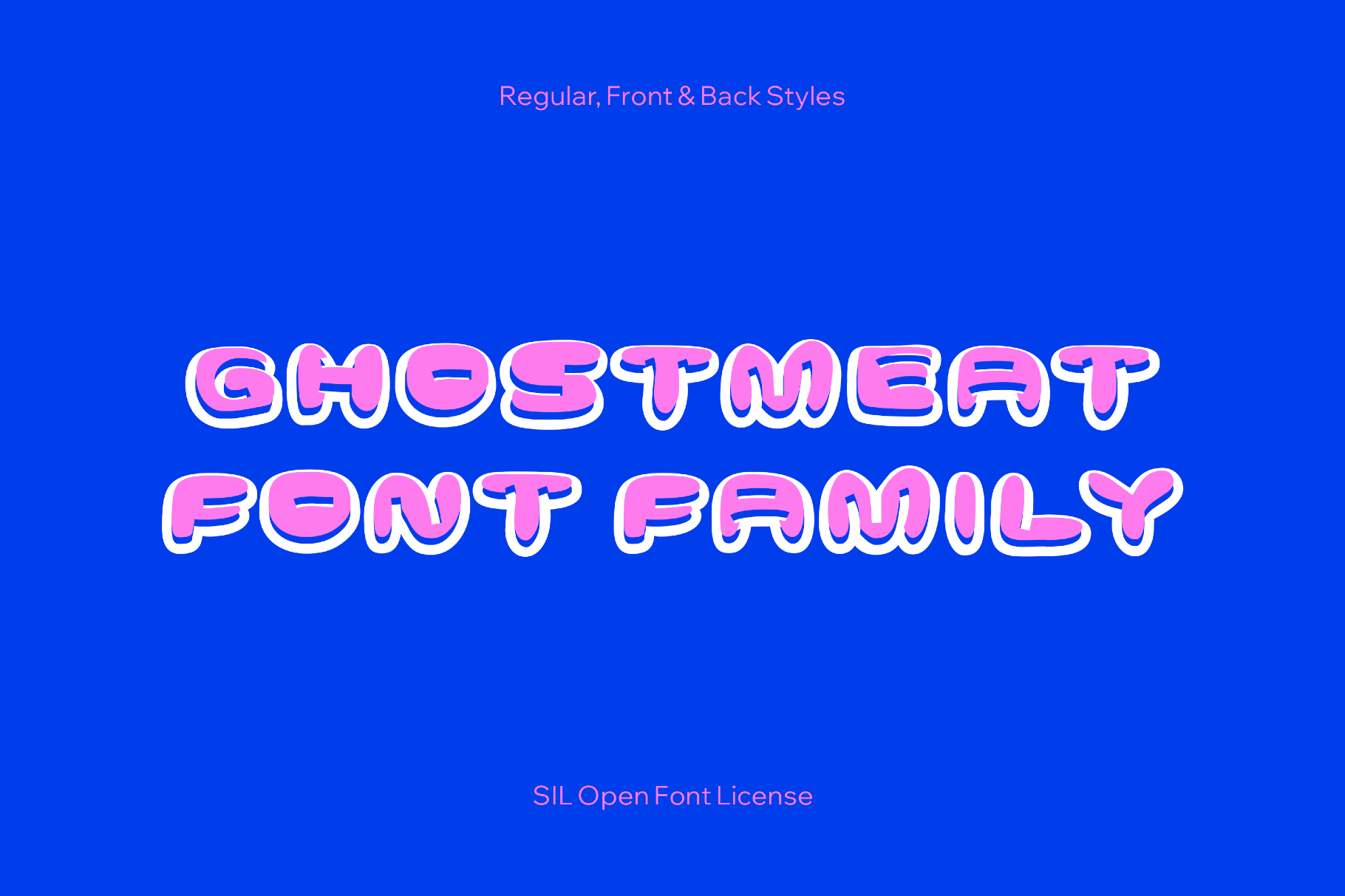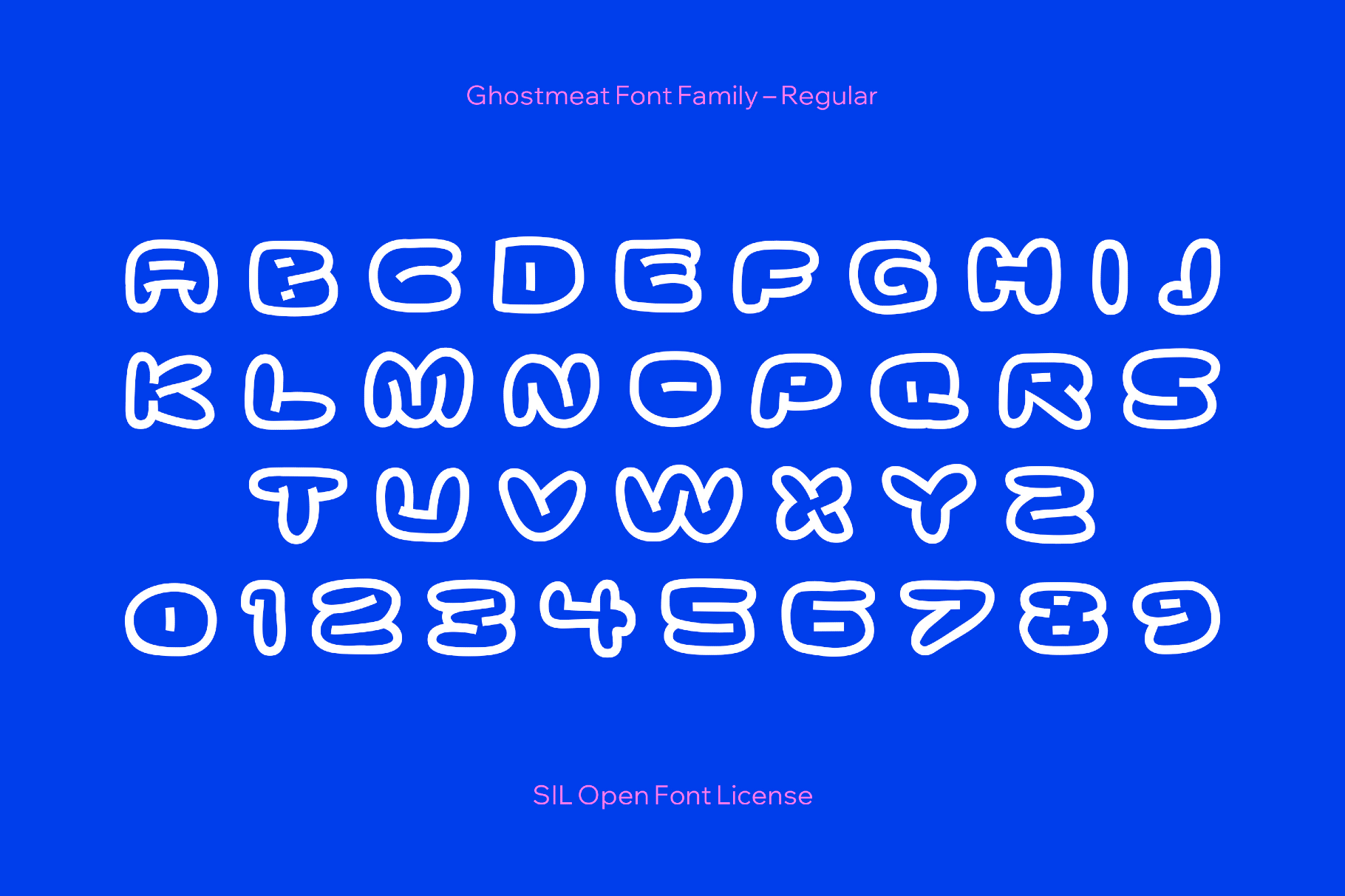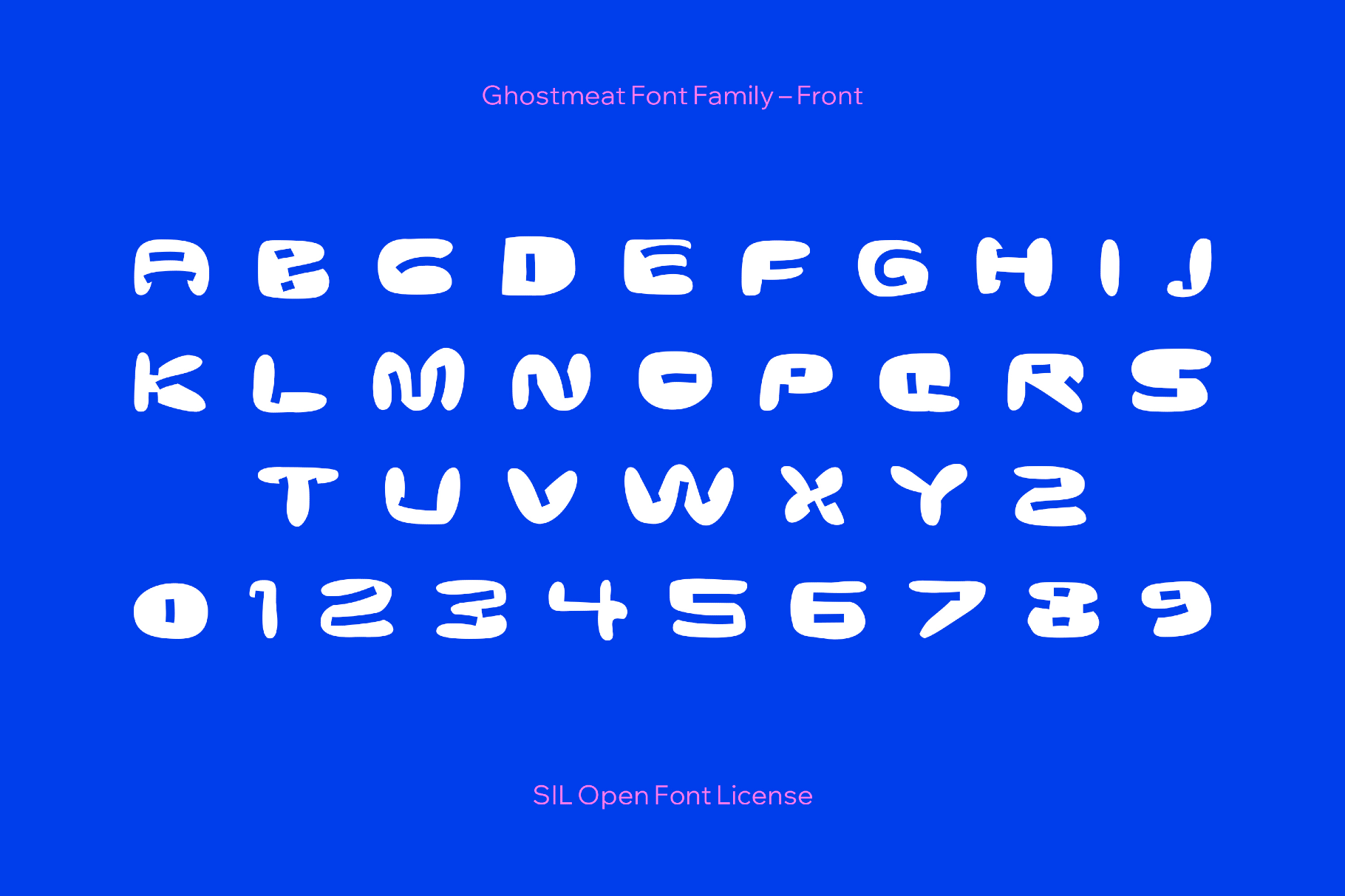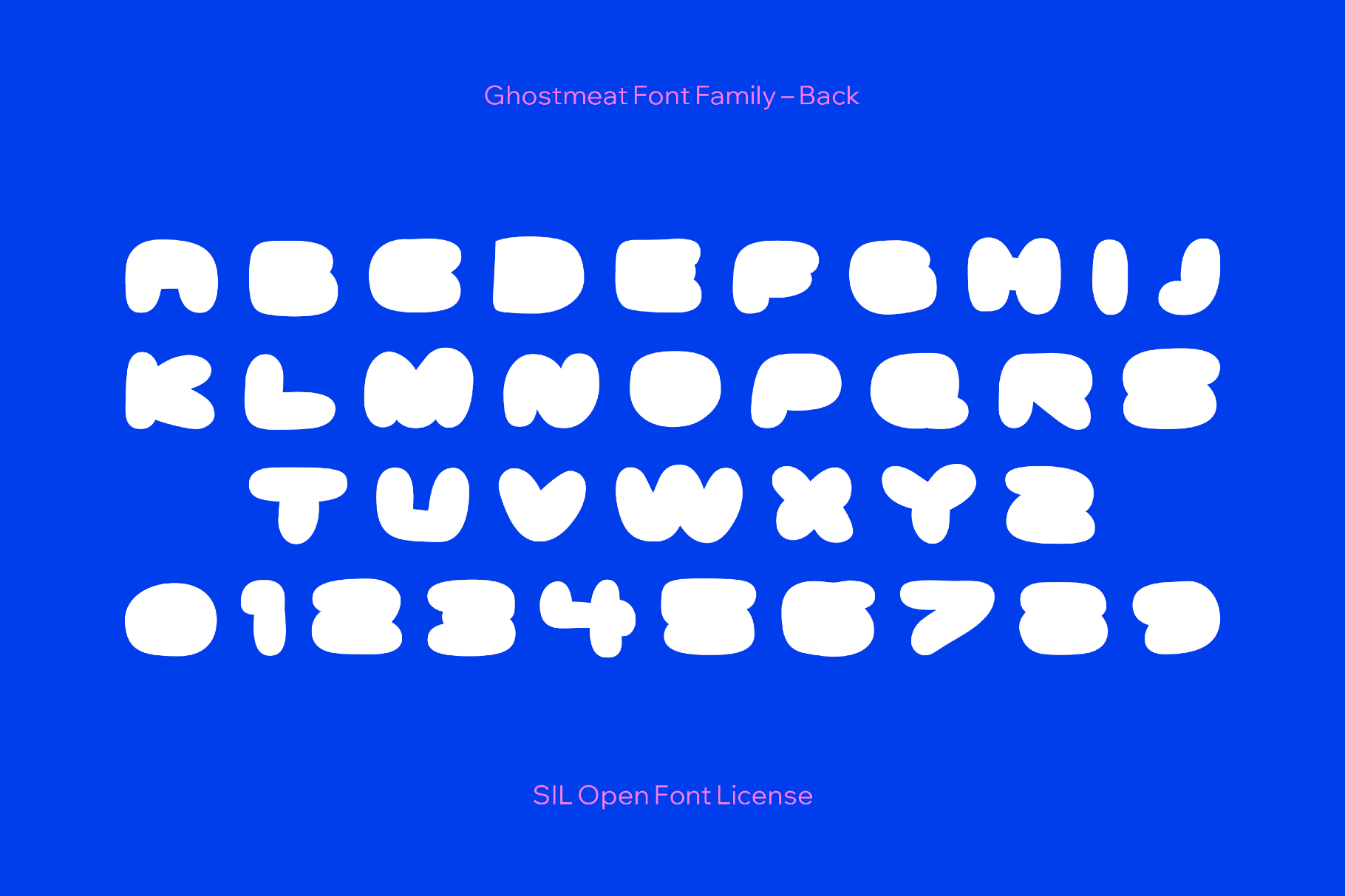
Ghostmeat Font Family
Ghostmeat
The hollow cartoon Ghostmeat Font Family recalls VHS-era horror-comedy posters and zine culture. A loose, bouncy typeface is excellent for Halloween campaigns, kids’ books, indie comics, band or podcast logos, poster headlines, game titles, graffiti-inspired branding sticker packs, and packaging accents.
- Three styles: Regular, Front-Regular, and Black-Regular.
- Only uppercase letters.